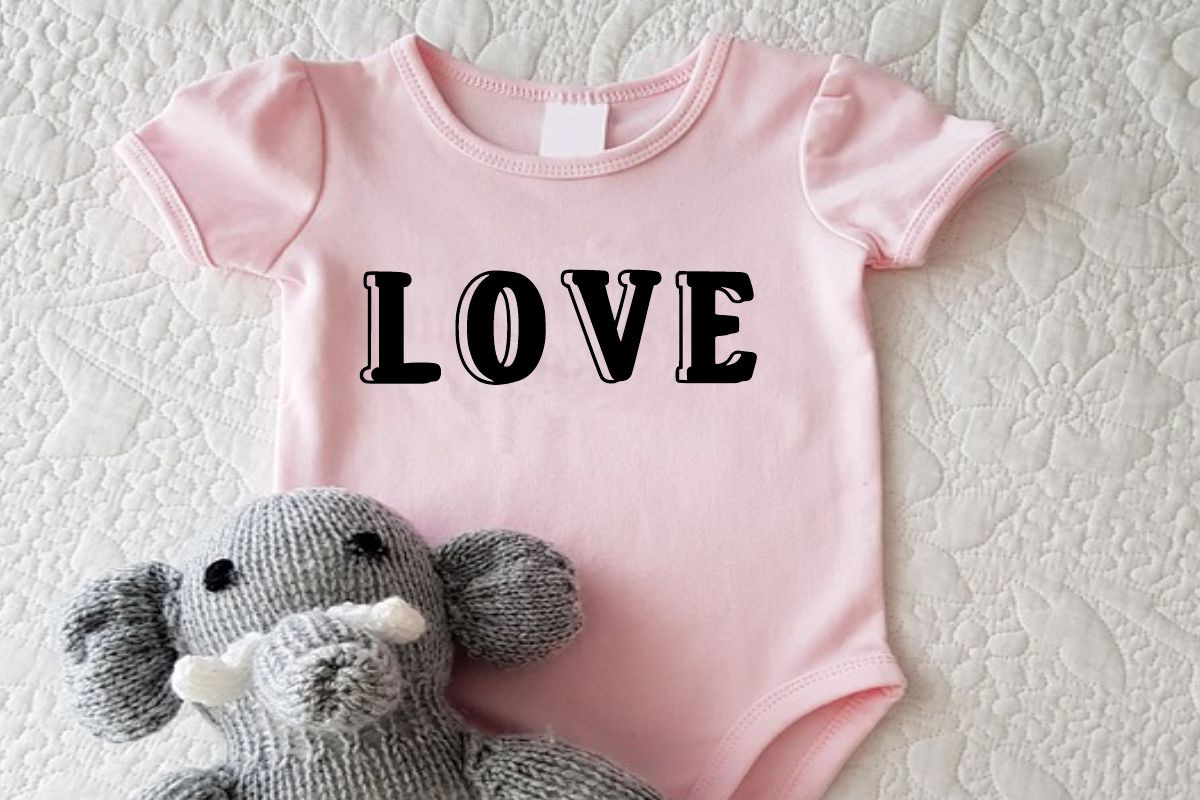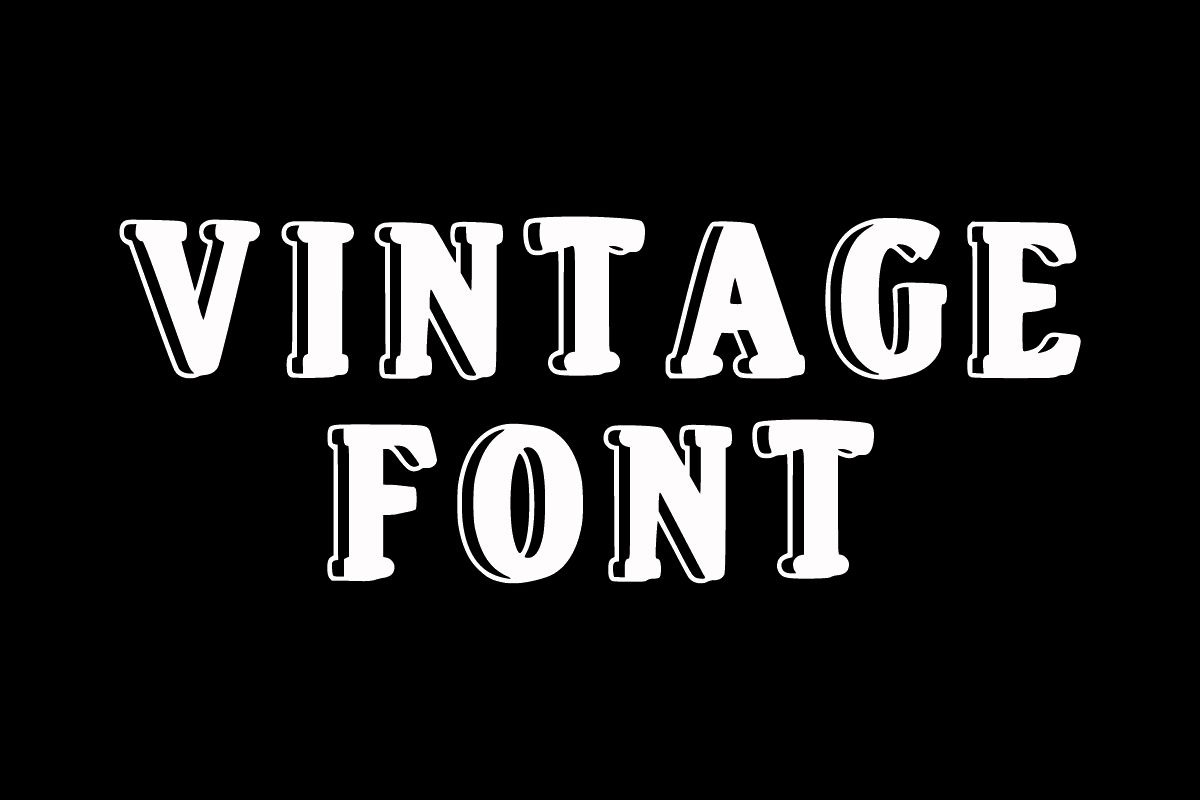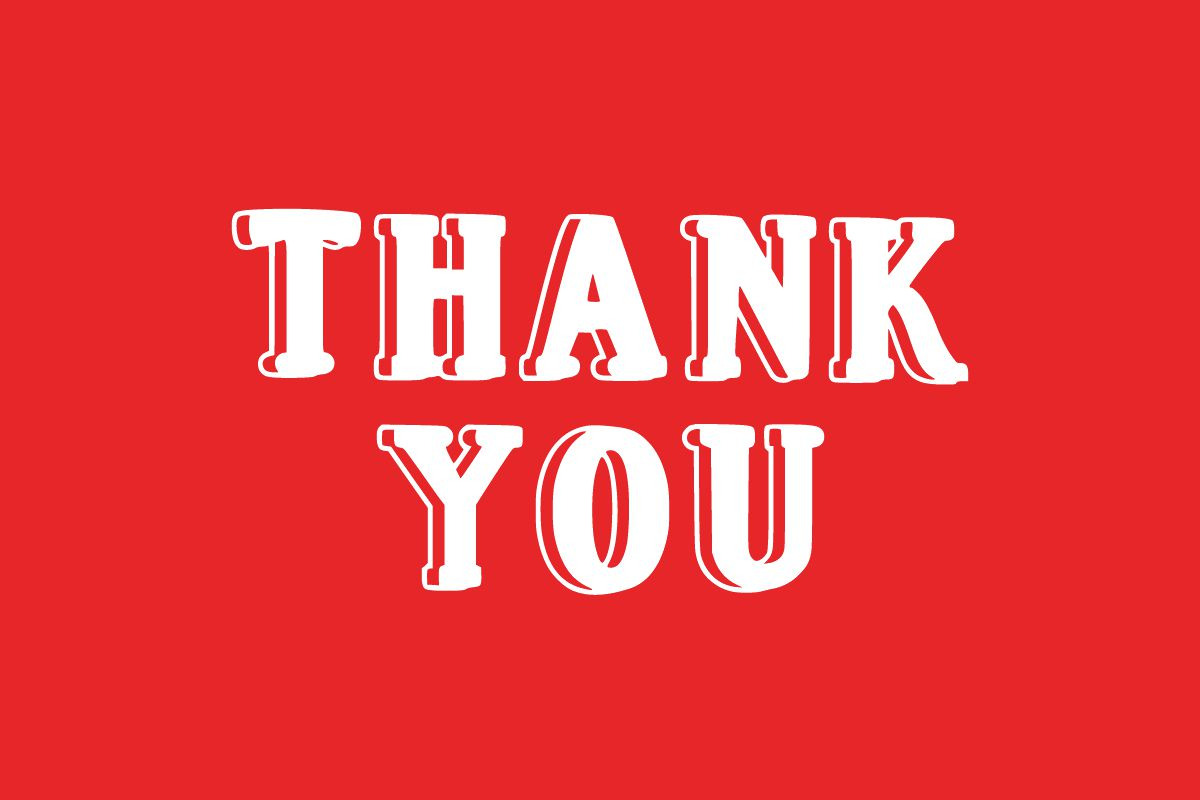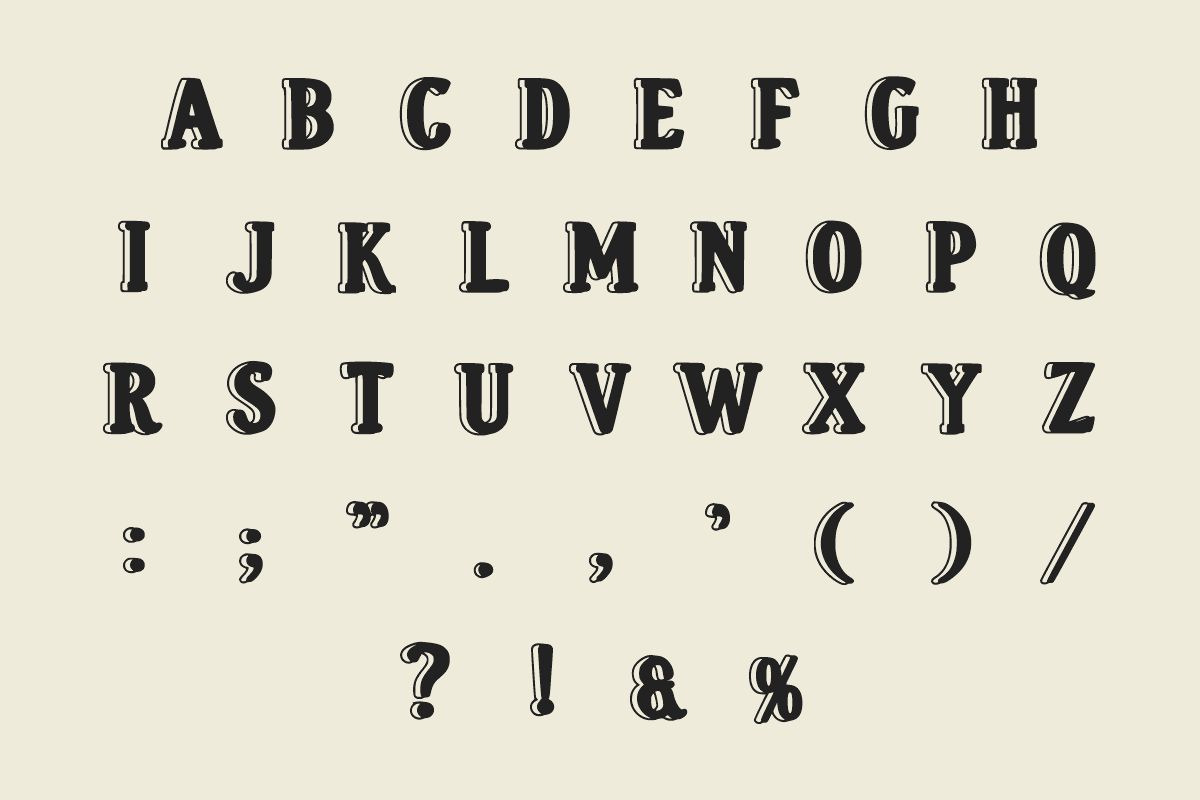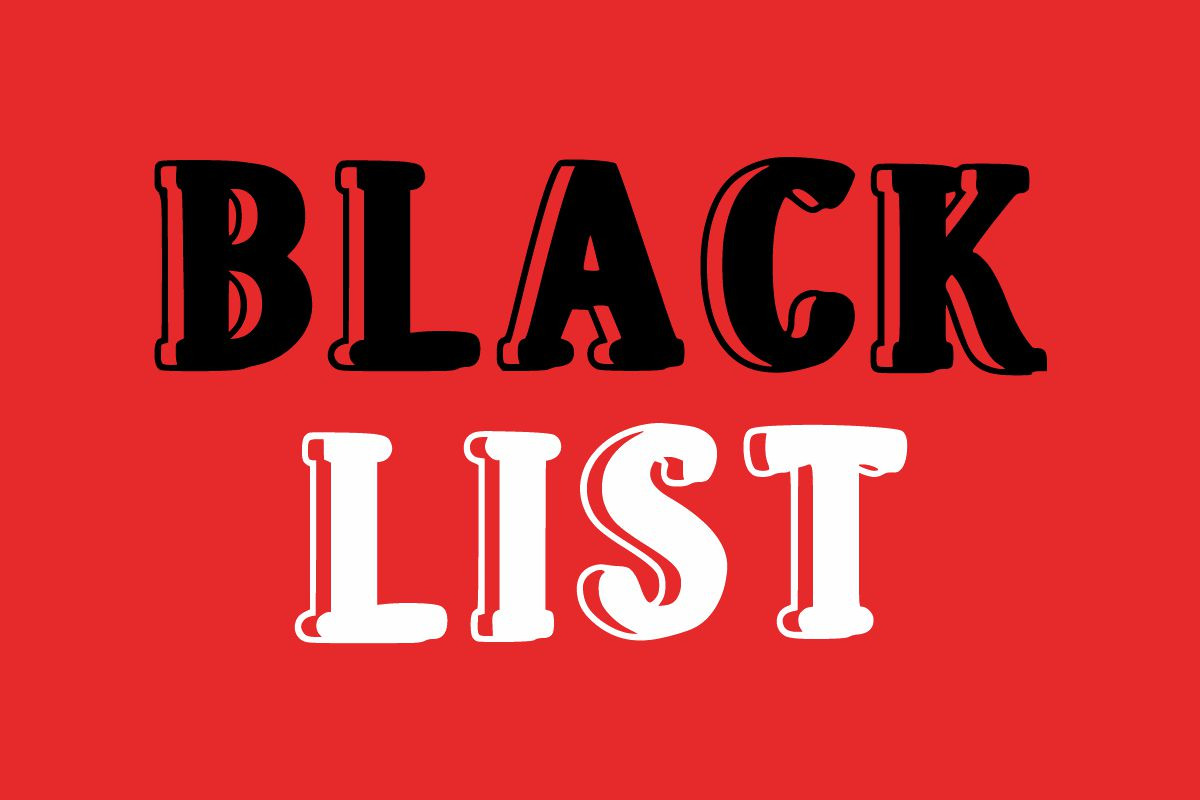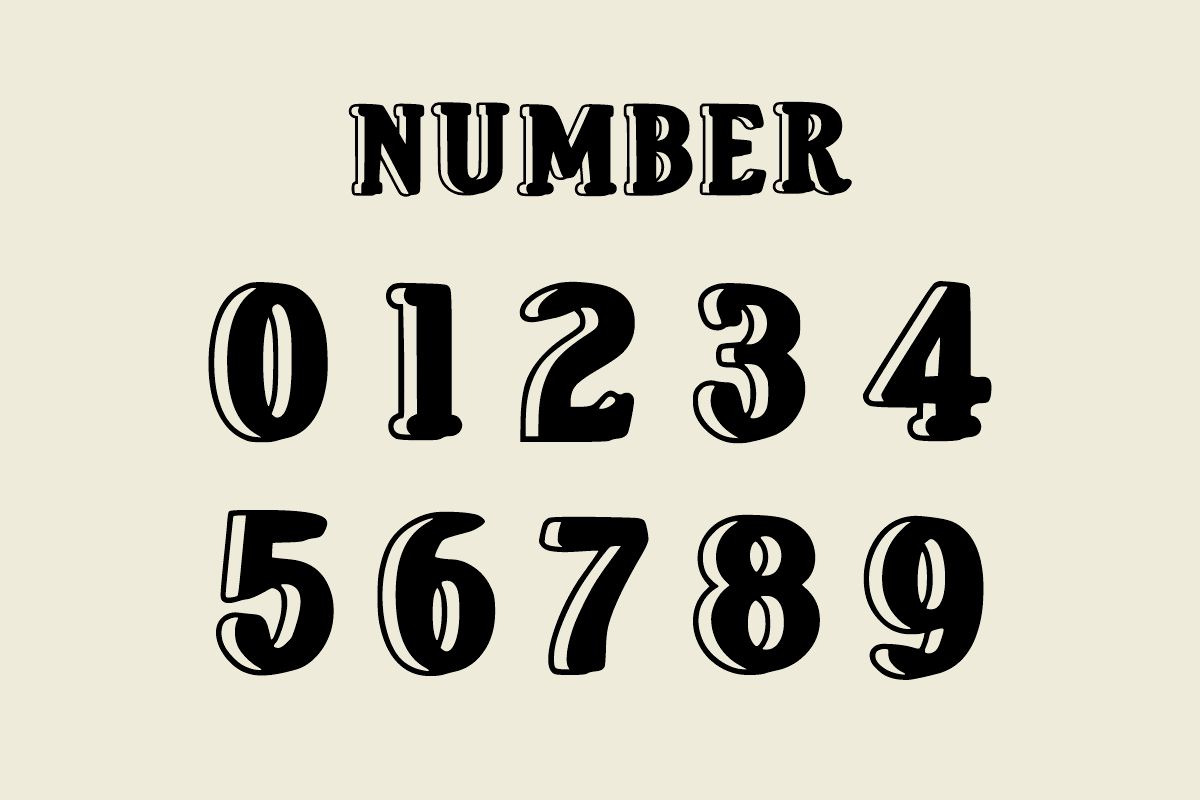
Victory Black
Victory Black is a Classic vintage font, outline bold display font. It is suitable for any winter and holiday branding project, product packaging, invitation, quote, t-shirt, label, poster, text effect, label, and logo that you wish to develop.